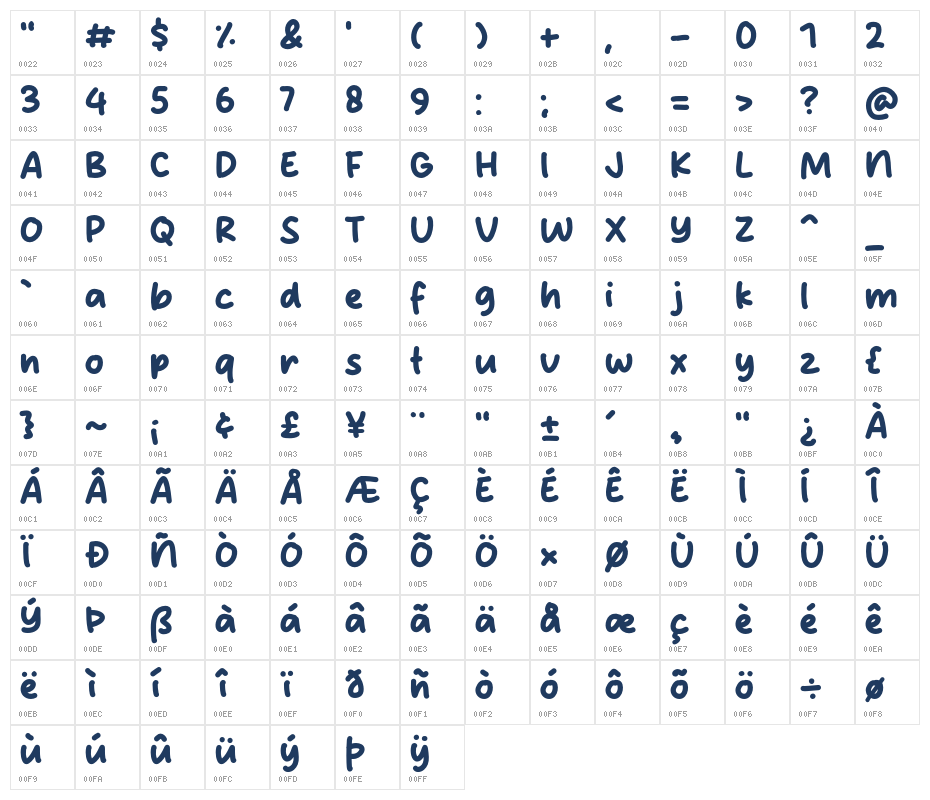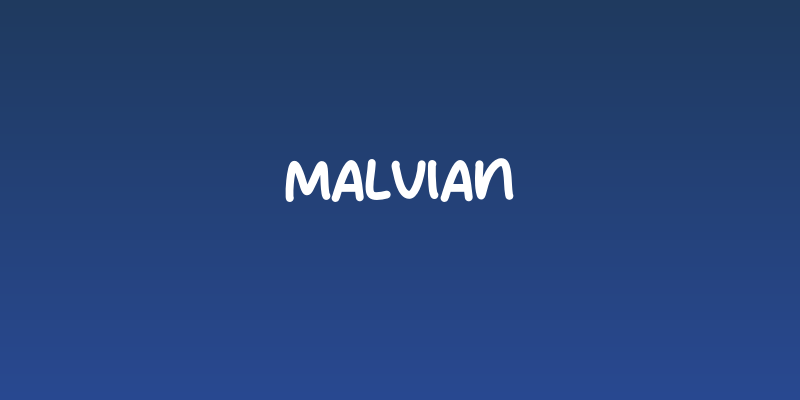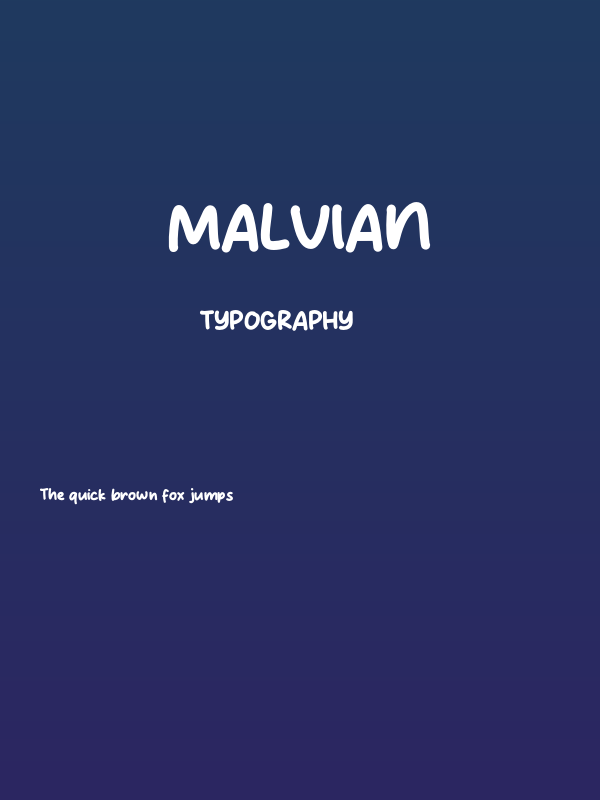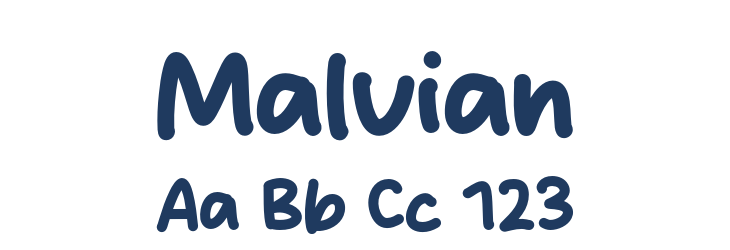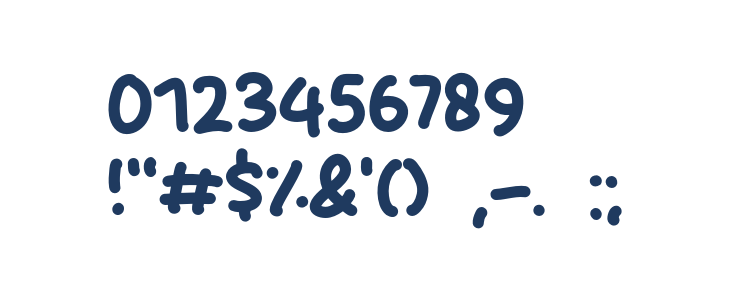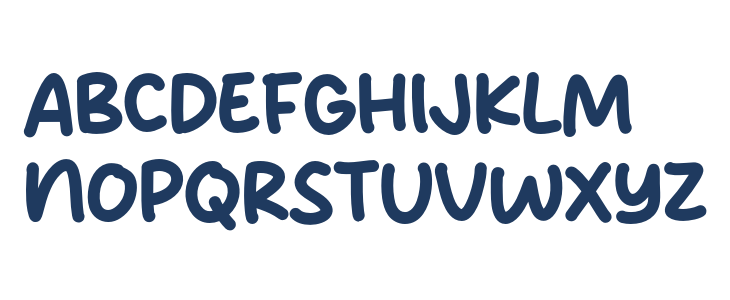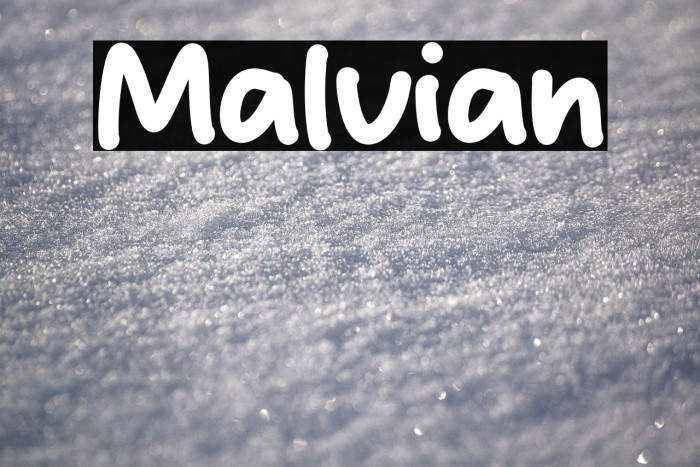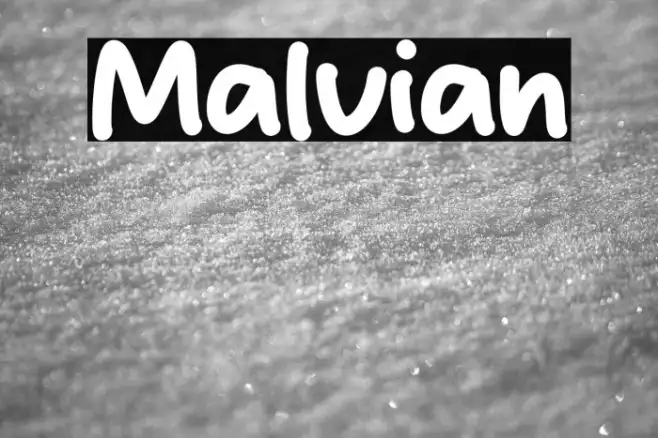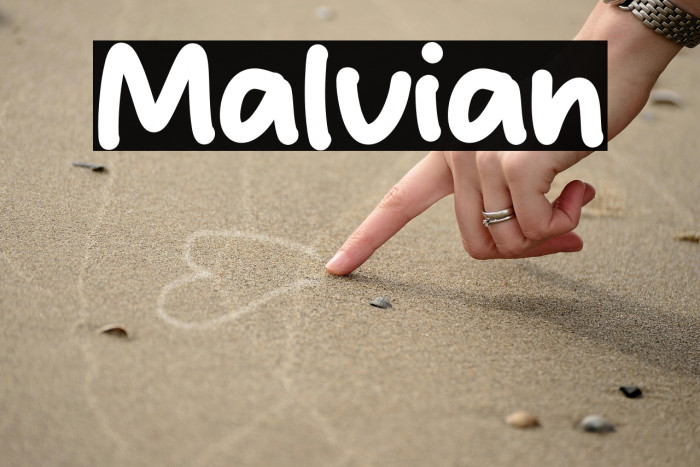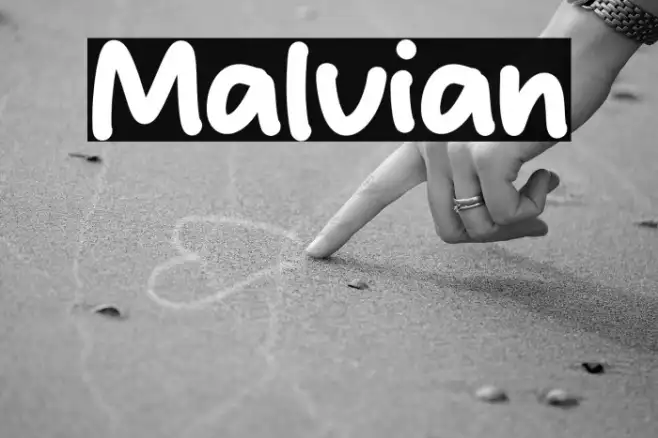
Malvian Font
Malvian Description
A playful, rounded, handwritten style font with a casual and friendly appearance.
Malvian
| Overall Style | Casual, Friendly, Playful |
| Use Case | Headlines, Body text, Logos, Invitations |